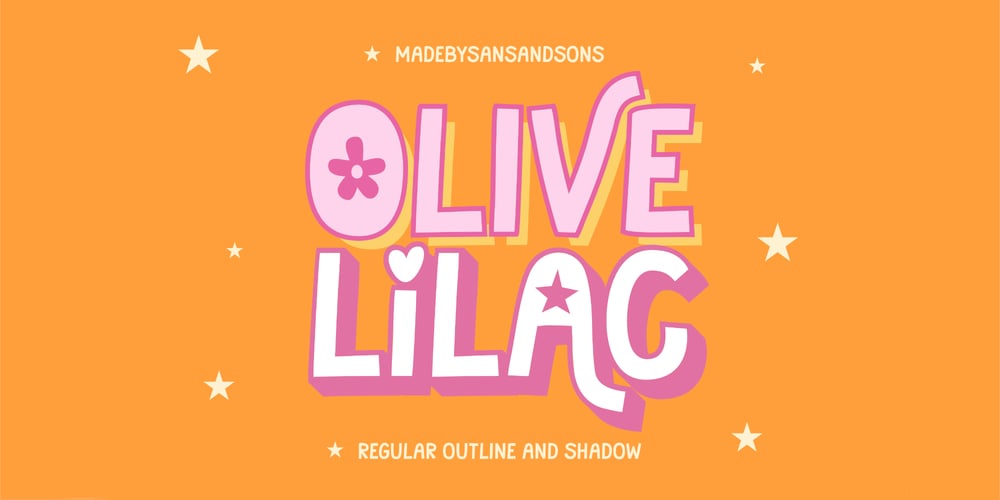
Olive Lilac Font Family was designed by Angga Suwista and published by Sans And Sons. Olive Lilac contains 3 styles and family package options. Meet “Olive Lilac” — a fun retro sans serif font merging groovy classics with a contemporary unique style.”Olive Lilac” adds sophistication to any project and is versatile for branding, invitations, or editorial design.